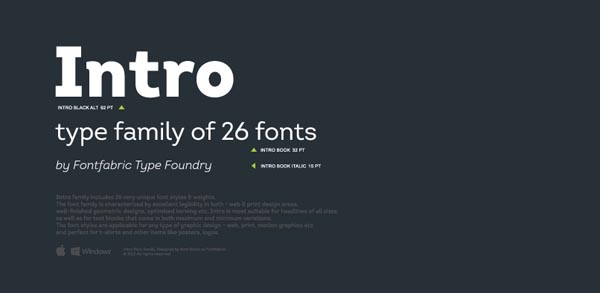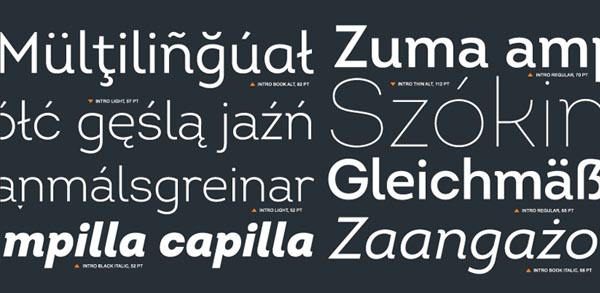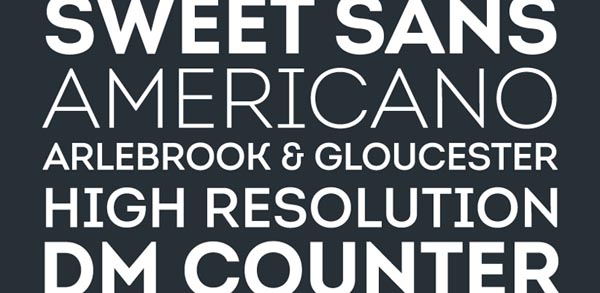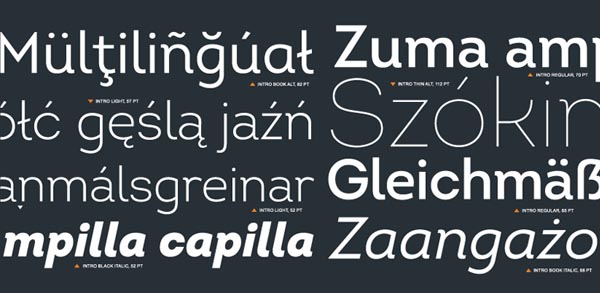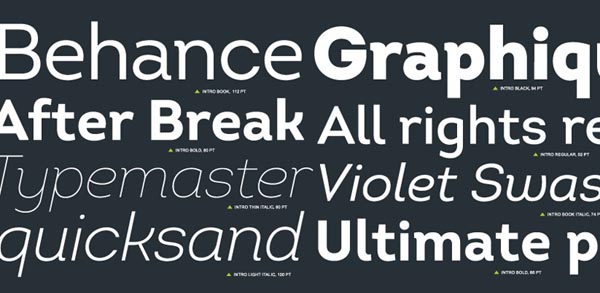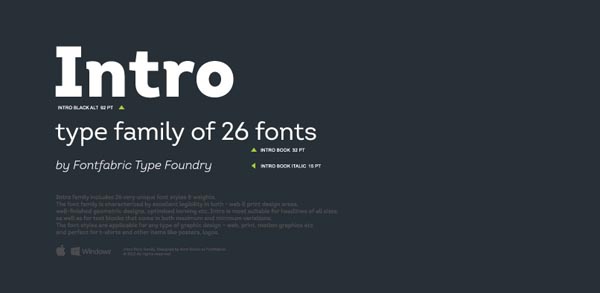
The Intro font family, a modern typeface for designers.
The Intro font family by FontFabric consists of a variety of unique font styles and weights. The type family has an excellent legibility in both print and web applications. This modern font impresses by a nice geometric design and perfect kerning. Intro is best suited for flashy headlines, t-shirt prints, poster, or logo designs.
After an update by type designer Svetoslav Simov, the family now consists of 50 fonts in total! So you get a huge range of individual weights and styles.